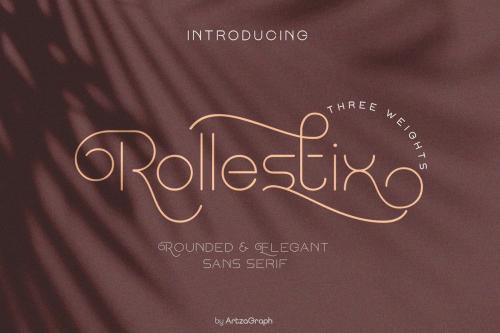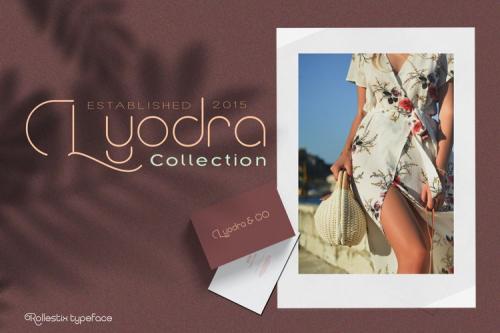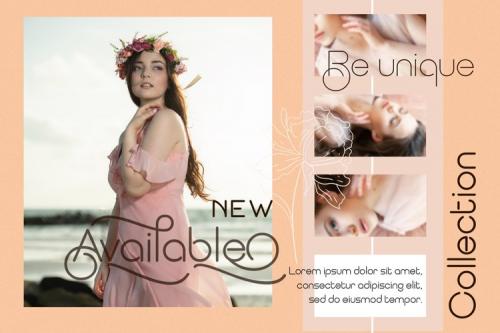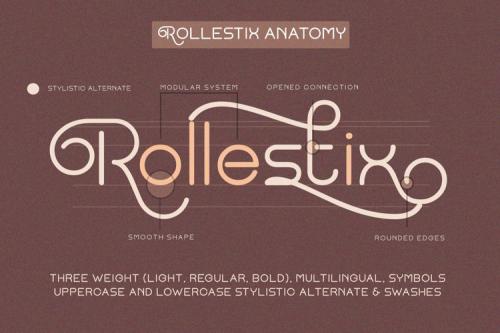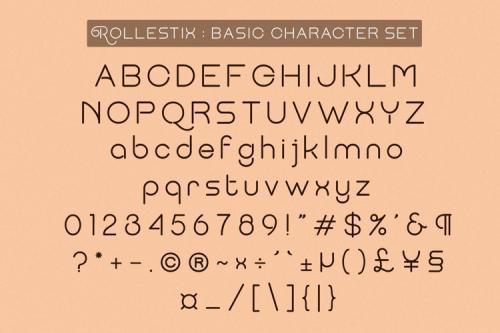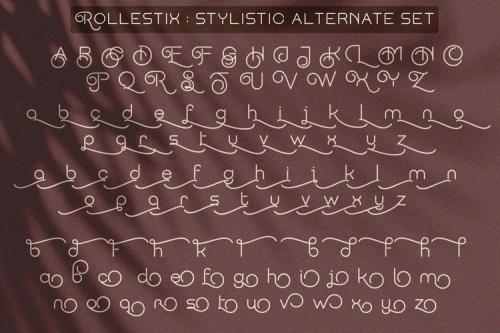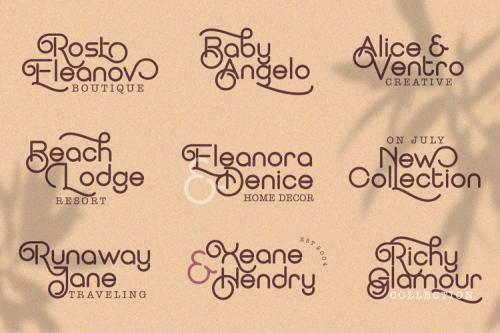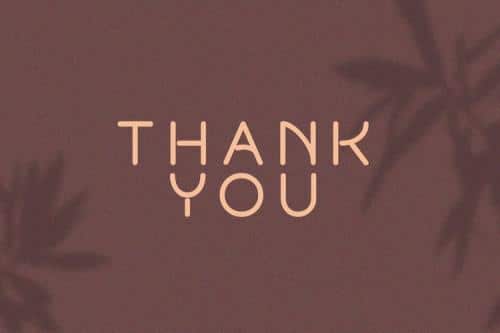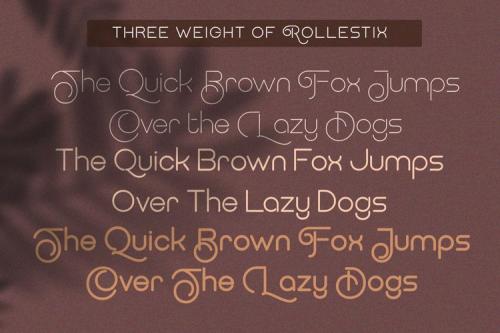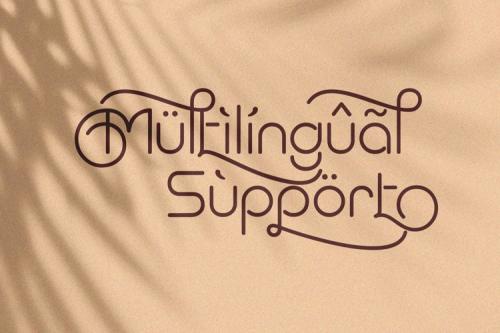
Rollestix typeface is a modern rounded typeface that has a simple shape, soft structure, and rounded edges. Its clean lines, smooth forms, unique shape, and proportions give the face a dynamic, like harmony. Featuring a light, regular, and bold weights.
Rollestix is perfect for branding projects, logo, wedding designs, social media posts, advertisements, product packaging, product designs, label, photography, watermark, invitation, stationery, and any projects that need handwriting taste. It is great for creative projects, be it inspirational design for communicating your brand.